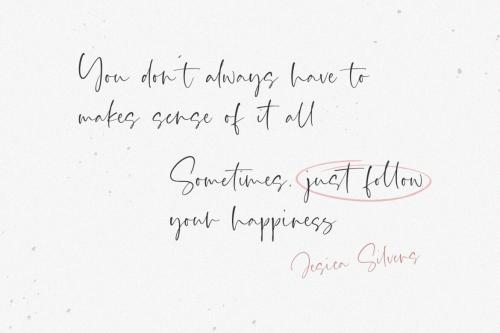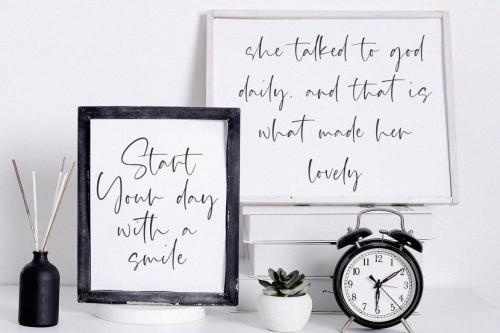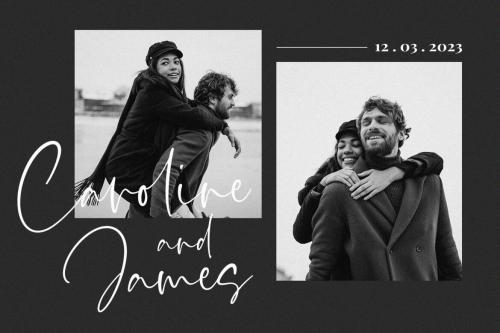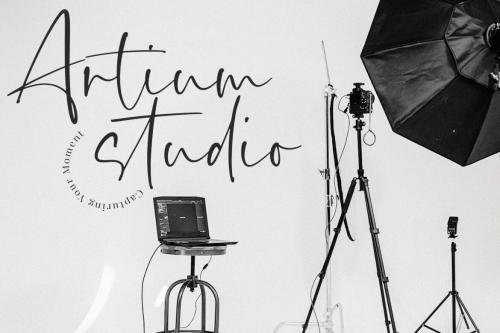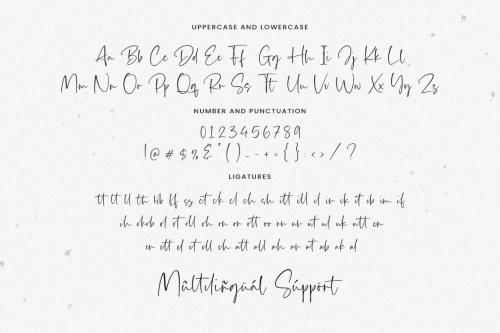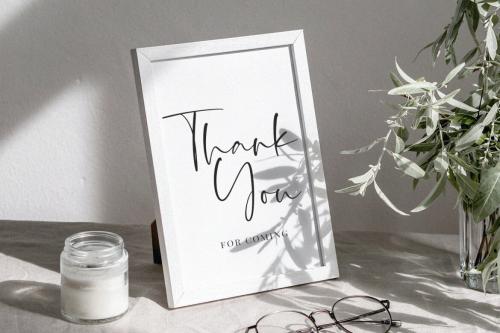
Proudly Present Sophia Marilyn
Sophia Marilyn is a Handwritten script font that is modern and fresh, and will bring a warm and inviting feel to your business. Take advantage of the fonts and experience the magic for yourself.
Sophia Marilyn is perfect for product packaging, branding project, megazine, social media, wedding, or just used to express words above the background.
Sophia Marilyn Font Features premium :
-Full Set of standard uppercase, lowercase, number, punctuation and symbols.
-Extra set ligature lowercase & underline
-Sophia Marilyn also multilingual support.